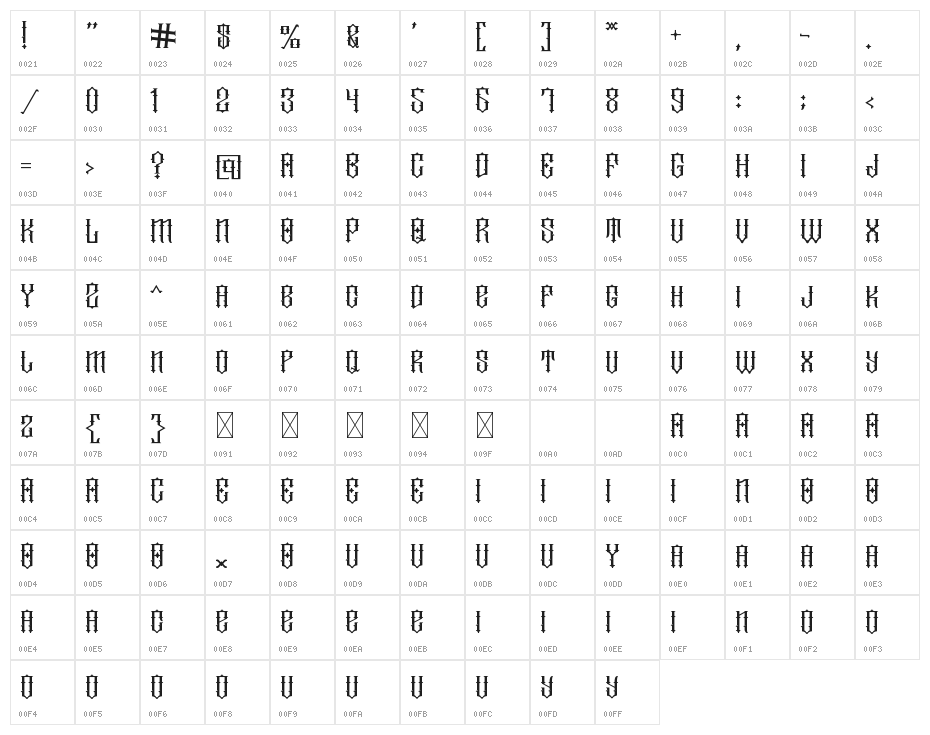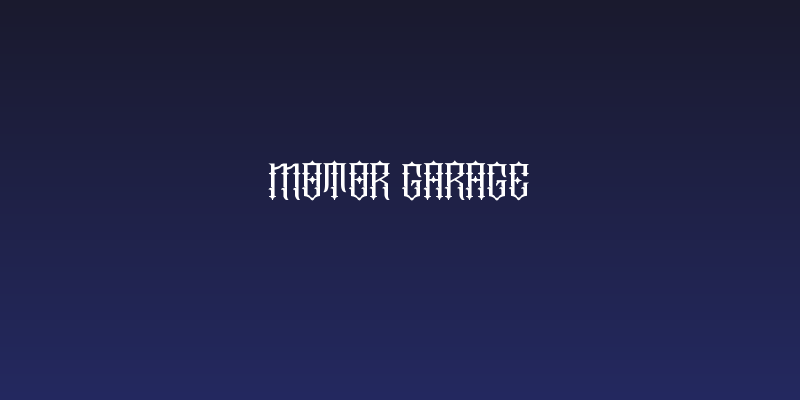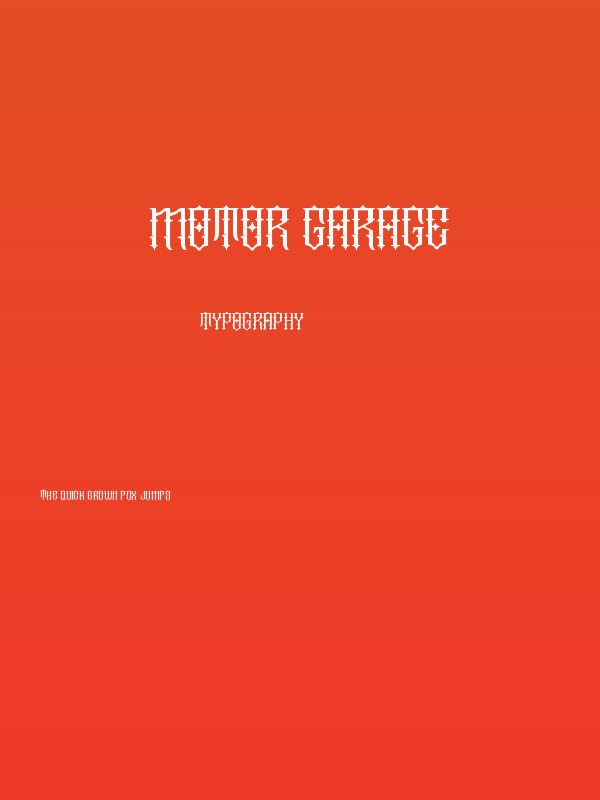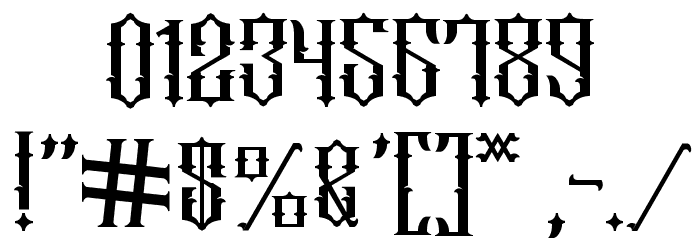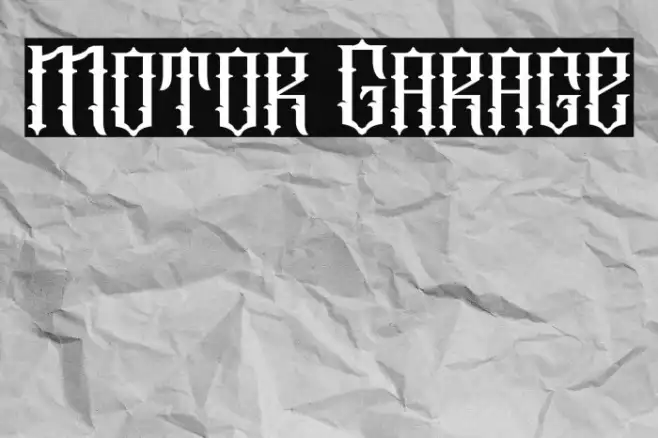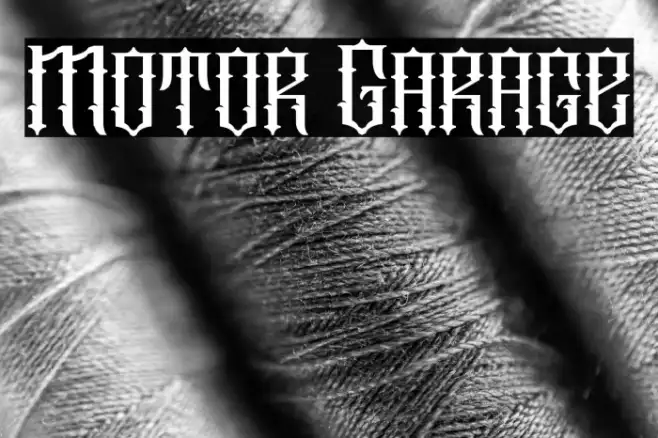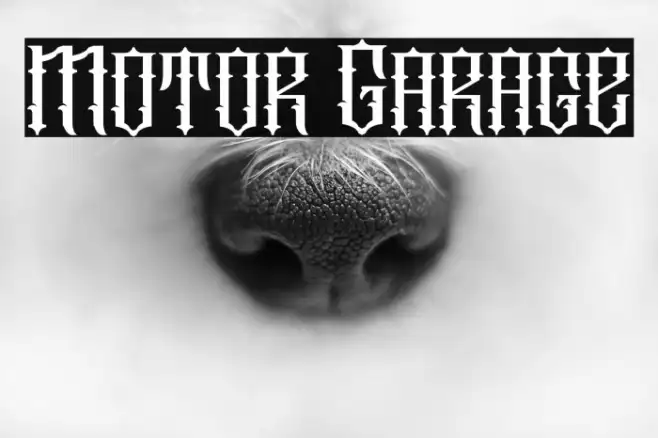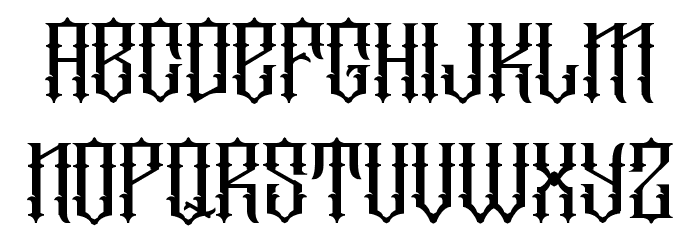
Motor Garage Font
Motor Garage Description
This font features a bold and striking design with sharp, angular lines and a distinct gothic influence. The characters are heavily stylized, with pointed serifs and intricate detailing that give it a unique, edgy appearance. The uppercase and lowercase letters maintain a consistent style, while the numbers and special characters are equally bold and attention-grabbing. This font's dramatic and ornamental style makes it ideal for projects that require a strong visual impact.
| Proposed Projects | Ideal for branding, posters, album covers, and any design requiring a bold, edgy aesthetic. |